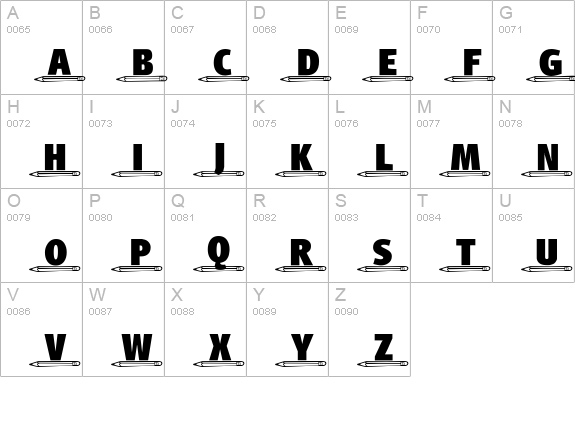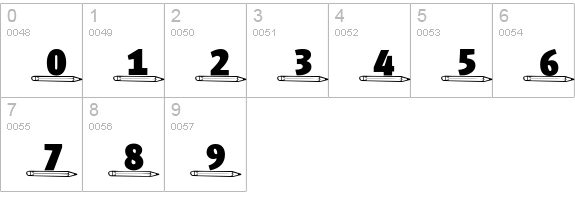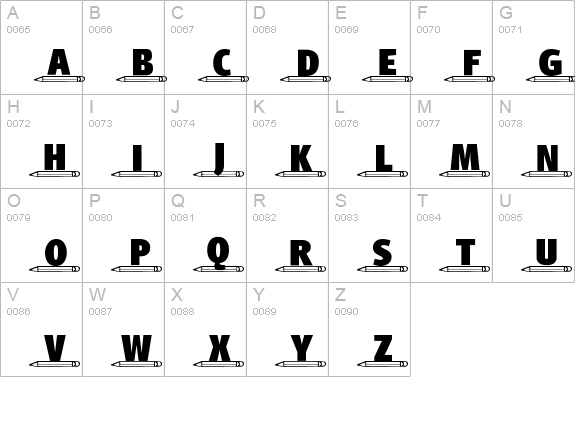
4YEOschool Font Details
Introducing 4YEOschool font, a versatile and modern typeface that exudes sophistication and elegance. With its clean lines and sharp edges, this font is perfect for a wide range of design projects, from branding to editorial design. 4YEOschool font is designed with attention to detail, ensuring that each character is perfectly balanced and harmonious with the overall design. Its timeless appeal makes it suitable for both print and digital applications, adding a touch of class to any project. The best part? 4YEOschool font is completely free to download at FontsMarket.com. Whether you're a designer looking to add a new font to your collection or a business owner in need of a fresh look for your branding, this font is the perfect choice. Don't miss out on the opportunity to elevate your designs with the elegant and sophisticated 4YEOschool font.